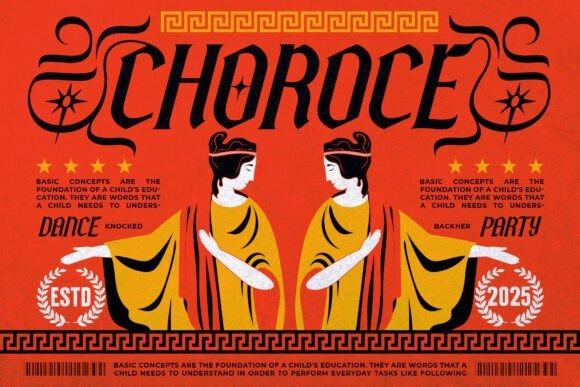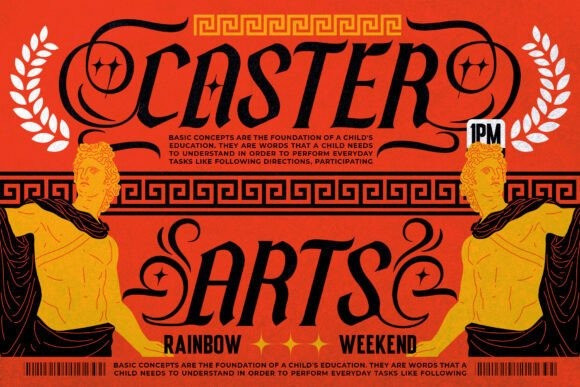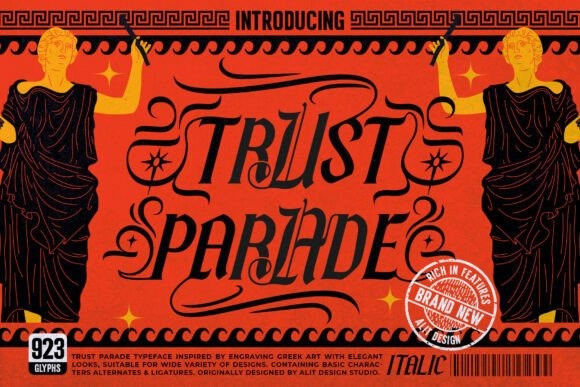
Trust Parade Font
Trust Parade Font – A Greek Engraving Inspired Display Font.Step into the realm of legends with Trust Parade, a typeface that masterfully blends the sharp aggression of blackletter calligraphy with the timeless elegance of ancient Greek and Roman engravings.
Inspired by the intricate details of classical pottery, marble inscriptions, and the chaotic beauty of mythology, Trust Parade is not just a font—it is a piece of history reimagined for the modern rebel. Each character is chiseled with precision, featuring sharp serifs and diamond-shaped accents that evoke the strength of a gladiator and the grace of a deity.
Whether you are designing a logo for a heavy metal band, a poster for a dark fantasy movie, a vintage liquor label, or edgy streetwear merchandise, Trust Parade commands attention. It comes packed with an impressive array of 923 glyphs, including extensive stylistic sets (SS1–SS5), ornate ligatures, and decorative swashes that act like vines from the garden of Olympus, allowing you to create truly unique, custom typography arrangements.